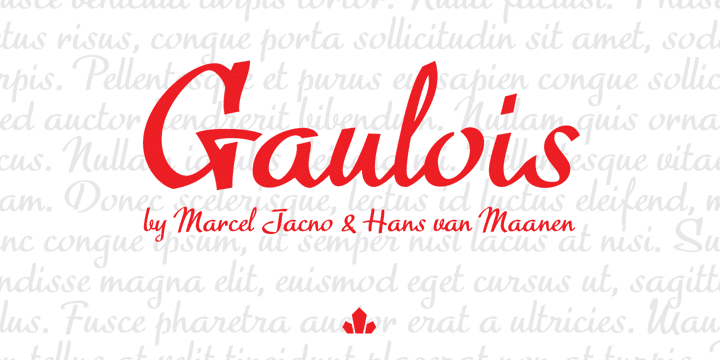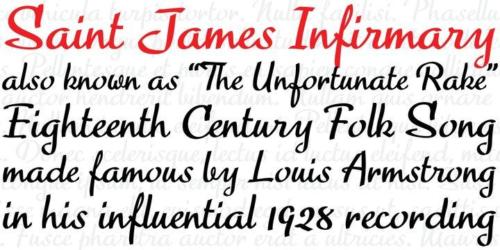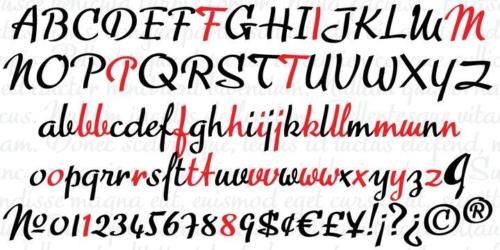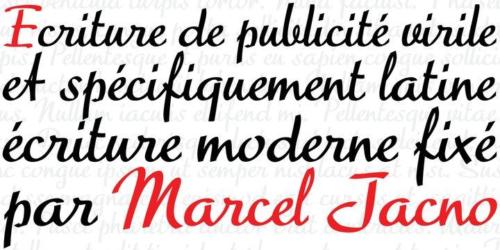
A couple of years before the second World War, Marcel Jacno, the popular French graphic designer who in the 1930s designed iconic posters for Gaumont and Paramount and famously illustrated the Gaulish helmet that first adorned the Gauloises cigarette packs in 1936, was asked by Deberny & Peignot to design a calligraphic typeface for the advertising market. Jacno’s Scribe design, billed by D&P as a “virile ad writing” typeface, was released to some great fanfare in 1937, enjoyed some time of French spotlight, and was ready to make waves in the rest of Europe before the war broke out and snuffed its chances at international recognition. However, samples of it can still be found in some specialty post-war publications as an example of a trend that lasted a couple of decades, when Western European type manufacturers commissioned famous visual artists to design typefaces in order to capitalize on the artists’ fame – the trend that brought us standards like Futura and the long list of Lucien Bernhard and Imre Reiner faces.
This exclusive digital version of Jacno’s design expands on the original concept with a large character set that includes plenty of alternates, a couple of different ways for seamless lowercase connections, three sets of figures, and extended Latin language support, adding up to over 540 characters in a one big, contextually-programmed font.